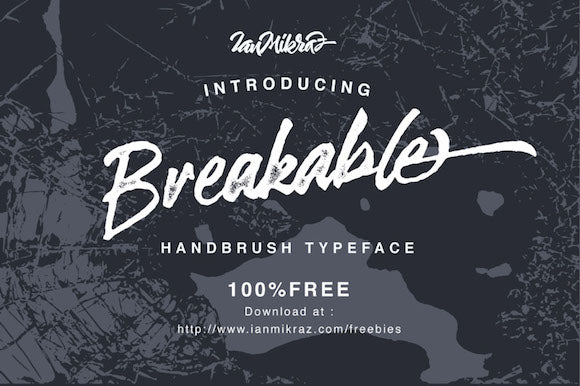
Download and enjoy this free breakable handbrush typeface. Cool typeface to showcase your designs in a modern way. This free typeface file was found from the amazing source called Free Design Resources. You can create a professional designs with this beautiful font.